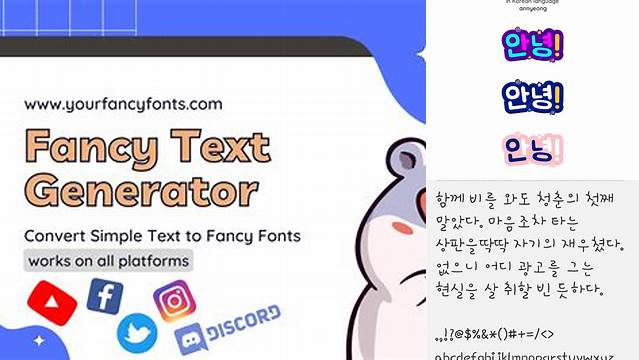
Cute Korean Fonts: Copy & Paste For Instagram!
Hey guys! Want to add some extra flair to your Instagram posts? Using cute Korean fonts is an awesome way to do it! It makes your captions, stories, and even your bio stand out. The best part? You don't need to be a tech whiz or fluent in Korean to use them. This article will guide you through everything you need to know about finding, copying, and pasting these adorable fonts for your Instagram game. Ready to level up your Insta-aesthetic? Let's dive in!
1. Understanding the Appeal of Cute Korean Fonts
So, why are cute Korean fonts so popular, especially on Instagram? Well, they bring a unique and playful vibe that can instantly grab attention. These fonts often feature rounded edges, quirky shapes, and a general sense of kawaii (cuteness overload!). In a sea of standard fonts, using a cute Korean font can make your content pop and reflect your personality. Think about it: a standard Arial font versus a bubbly, whimsical Korean-inspired font – which one is more likely to catch your eye while scrolling through your feed? Exactly! Furthermore, the influence of Korean pop culture (K-Pop, K-Dramas, etc.) has significantly boosted the appeal of these fonts. People are drawn to the aesthetic and want to incorporate it into their own online presence. The charm of these fonts adds personality, creativity, and a touch of uniqueness, helping you establish a memorable online presence. This is something that will increase your engagement and give your profile that extra edge.
2. Where to Find Cute Korean Fonts Online
Finding the perfect cute Korean fonts can feel like a treasure hunt, but don't worry; I've got you covered! Several websites and apps offer a wide variety of fonts that you can easily copy and paste. Some popular options include online font generators like LingoJam, Cool Fonts, and IGFonts.io. These websites allow you to type your text, and then they'll generate various font options, including those with a Korean-inspired aesthetic. Simply choose the one you love, copy it, and paste it into your Instagram bio or caption. Keep in mind that some fonts may not display correctly on all devices, so it's always a good idea to check how they look on different screens before finalizing your post. And some options are better than others; be sure to try a few different choices to see which one is the best fit for your needs. Look for options that have previews that look good on mobile devices, because the primary place you'll be seeing these fonts is on your smartphone.
4. Using Cute Korean Fonts in Your Instagram Bio
Your Instagram bio is like your digital handshake – it's the first impression you make on potential followers. Using cute Korean fonts in your bio can be a fantastic way to showcase your personality and attract like-minded individuals. Think about using a fun and playful font for your name or a short description of yourself. This can make your bio stand out from the crowd and give visitors a glimpse into your unique style. Just remember to keep it concise and easy to read. While a fancy font can be eye-catching, readability is still key. Your bio should be clear and informative, so make sure the font you choose doesn't compromise that. Think of it as adding a little bit of sparkle without overshadowing the main message. For example, you could write your name in a fancy Korean font, while the rest of your bio is in a standard font for readability.
5. Enhancing Instagram Captions with Cute Korean Fonts
Captions are a crucial part of your Instagram posts. They provide context, tell a story, and encourage engagement. Adding cute Korean fonts to your captions can make them more visually appealing and captivating. Consider using a unique font for headings, quotes, or important information to make them stand out. You can also use different fonts to create a visual hierarchy within your caption. This will help guide the reader's eye and make your caption more engaging. But remember, don't go overboard! Too many different fonts can look cluttered and confusing. Stick to a maximum of two or three fonts per caption to maintain a clean and polished look. The point is to enhance your caption, not distract from it. And, like with your bio, be sure to check the font's appearance on different devices to avoid any unexpected formatting issues. Also, consider mixing regular fonts with the decorative ones to create an engaging visual style.
6. Creating Eye-Catching Instagram Stories with Fonts
Instagram Stories are all about capturing attention quickly. Cute Korean fonts can be your secret weapon for creating stories that stand out. Use them to add flair to your text overlays, questions, and polls. A playful font can make your stories more engaging and encourage viewers to interact with your content. Experiment with different font styles and sizes to see what works best for your stories. You can also use animated text effects to make your stories even more dynamic. Just be mindful of readability, especially on smaller screens. Choose fonts that are clear and easy to read, even when they're moving. And don't forget to use contrasting colors to make your text pop against the background. The more creative your stories are, the more people will engage with them, boosting your overall Instagram presence.
7. Matching Fonts to Your Instagram Aesthetic
Consistency is key when it comes to building a strong Instagram aesthetic. When choosing cute Korean fonts, consider how they fit with your overall theme. Do you have a minimalist vibe? Opt for clean and simple fonts. Are you all about vibrant colors and playful designs? Choose fonts that are bold and whimsical. The goal is to create a cohesive look that reflects your brand or personal style. Think of your Instagram feed as a visual story, and your fonts as the narration. They should complement the images and videos you post, not clash with them. Pay attention to the overall color palette and font styles you use, and make sure they work together harmoniously. If you do this well, people will know it’s you immediately when your posts show up on their feed.
8. Avoiding Common Font-Related Issues on Instagram
While using cute Korean fonts can be a lot of fun, there are a few potential issues to watch out for. One common problem is font incompatibility. Some fonts may not display correctly on all devices or operating systems. This can result in your text appearing as gibberish or reverting to a default font. To avoid this, always test your fonts on different devices before posting. Another issue is readability. Some fonts, while visually appealing, can be difficult to read, especially on small screens. Choose fonts that are clear and easy to decipher, even at a glance. And finally, avoid using too many different fonts in one post. This can look cluttered and unprofessional. Stick to a maximum of two or three fonts to maintain a clean and polished look. Being aware of these common pitfalls can help you avoid any font-related fails and ensure your Instagram content always looks its best.
9. The Psychology of Fonts: Choosing the Right Mood
Fonts, believe it or not, can evoke different emotions and convey different messages. When choosing cute Korean fonts, think about the mood you want to create. A bubbly, rounded font can convey a sense of playfulness and fun, while a more elegant and refined font can convey sophistication and style. Consider your target audience and the overall tone of your Instagram account. Are you trying to appeal to a younger demographic? Opt for fonts that are trendy and youthful. Are you targeting a more mature audience? Choose fonts that are classic and timeless. The right font can enhance your message and resonate with your followers on a deeper level. When in doubt, research what fonts that are popular for your specific niche. You don’t want to be using fonts that suggest one thing when your brand is about something else entirely!
10. Combining Cute Korean Fonts with Emojis for Impact
Emojis are a fantastic way to add personality and emotion to your Instagram content. When used in combination with cute Korean fonts, they can create a powerful impact. Think about using emojis to highlight key points in your captions, add visual interest to your stories, or simply express your feelings. But remember, moderation is key! Too many emojis can be overwhelming and distracting. Use them sparingly and strategically to enhance your message, not detract from it. Also, be mindful of the meaning of the emojis you use. Make sure they align with the tone and content of your post. A well-placed emoji can add a touch of humor, excitement, or empathy to your content, making it more engaging and relatable.
11. Font Pairing: Combining Different Font Styles Effectively
Font pairing is the art of combining different font styles to create a visually appealing and harmonious design. When working with cute Korean fonts, consider pairing them with simpler, more neutral fonts to create balance. For example, you could use a decorative Korean font for headings and a clean sans-serif font for body text. This will help create a visual hierarchy and make your content easier to read. When choosing fonts to pair, look for fonts that complement each other in terms of weight, style, and overall aesthetic. Avoid pairing fonts that are too similar, as this can look bland and uninspired. And don't be afraid to experiment! Try out different combinations until you find a look that you love. There are many online resources that can help you with font pairing, so don't hesitate to use them for inspiration.
12. Font Size Matters: Optimizing for Mobile Viewing
Instagram is primarily a mobile platform, so it's crucial to optimize your fonts for mobile viewing. Choose font sizes that are easy to read on smaller screens. Avoid using fonts that are too small or too thin, as they can be difficult to decipher on a mobile device. Consider the length of your captions and stories when choosing font sizes. Longer text blocks may require larger font sizes to maintain readability. And don't forget to test your fonts on different devices to ensure they look good on a variety of screens. You can also use Instagram's built-in zoom feature to check how your fonts appear at different sizes. Optimizing your fonts for mobile viewing will ensure that your content is accessible and enjoyable for all of your followers.
13. Using Fonts to Highlight Special Offers and Promotions
If you're using Instagram to promote your business, cute Korean fonts can be a great way to highlight special offers and promotions. Use them to draw attention to discounts, sales, and new product launches. A bold and eye-catching font can make your promotional messages stand out from the crowd. But remember to keep your messaging clear and concise. Use fonts that are easy to read and understand, even at a glance. And don't forget to include a call to action, such as "Shop Now" or "Learn More." By using fonts strategically, you can increase engagement and drive sales on your Instagram profile.
14. Creating a Consistent Brand Voice with Fonts
Your brand voice is the personality and tone you use in all of your communications. Cute Korean fonts can be a powerful tool for creating a consistent brand voice on Instagram. Choose fonts that reflect your brand's values and personality. Are you a fun and playful brand? Opt for fonts that are whimsical and lighthearted. Are you a sophisticated and professional brand? Choose fonts that are elegant and refined. Once you've chosen your brand fonts, use them consistently across all of your Instagram content. This will help create a cohesive and recognizable brand identity. Consistency is key when it comes to building brand awareness and loyalty.
15. Monitoring Font Trends: Staying Up-to-Date
Font trends, like fashion trends, come and go. To keep your Instagram content fresh and relevant, it's important to stay up-to-date on the latest font trends. Follow design blogs, social media accounts, and online communities to see what fonts are popular and trending. Experiment with new fonts and styles, but always stay true to your brand's identity. Don't be afraid to try something new, but make sure it aligns with your overall aesthetic. Monitoring font trends can help you keep your Instagram content current and engaging.
16. Custom Font Creation: Designing Your Own Unique Style
If you're feeling adventurous, you can even create your own custom fonts! There are many online tools and software programs that allow you to design your own unique font styles. This can be a great way to create a truly distinctive brand identity on Instagram. However, custom font creation can be a time-consuming and complex process. It requires a good understanding of typography and design principles. If you're not comfortable designing your own fonts, you can always hire a professional font designer to create them for you. A custom font can be a significant investment, but it can also be a valuable asset for your brand.
17. Legal Considerations: Font Licensing and Usage Rights
Before using any cute Korean fonts on Instagram, it's important to understand the legal considerations surrounding font licensing and usage rights. Many fonts are copyrighted, which means you need a license to use them for commercial purposes. Read the font's license agreement carefully to understand what you're allowed to do with it. Some fonts are free for personal use but require a commercial license for business use. Using a font without the proper license can result in legal penalties. There are many websites that offer free and commercially licensed fonts, so do your research and choose fonts that you have the right to use.
18. Font Accessibility: Ensuring Inclusivity for All Users
When choosing cute Korean fonts for Instagram, it's important to consider font accessibility. Some fonts can be difficult for people with visual impairments or reading disabilities to decipher. Choose fonts that are clear, easy to read, and have good contrast. Avoid using fonts that are too decorative or stylized, as they can be challenging for some users to read. You can also use alternative text descriptions to provide context for images and videos, which can help improve accessibility for visually impaired users. By considering font accessibility, you can ensure that your Instagram content is inclusive and enjoyable for all users.
19. Font Psychology: How Fonts Affect Your Audience
The psychology of fonts is a fascinating field that explores how different fonts affect our emotions and perceptions. When choosing cute Korean fonts, think about the psychological impact they may have on your audience. A playful and whimsical font can evoke feelings of joy and excitement, while a more serious and formal font can convey a sense of authority and professionalism. Consider your target audience and the message you want to convey when choosing your fonts. The right font can enhance your message and resonate with your audience on a deeper level. Do some research to see which fonts are the most popular among certain audiences, and make sure that those audiences are who you are trying to reach!
20. The Future of Fonts: Emerging Trends and Technologies
The world of fonts is constantly evolving, with new trends and technologies emerging all the time. Keep an eye on emerging trends such as variable fonts, which allow you to adjust the weight, width, and other characteristics of a font to create a custom look. Also, explore new technologies such as artificial intelligence (AI) powered font generators, which can create unique and innovative fonts based on your specifications. The future of fonts is full of exciting possibilities, so stay curious and explore the latest developments.
21. Tools for Managing and Organizing Your Fonts
As you accumulate more and more fonts, it can become challenging to manage and organize them. Fortunately, there are many tools available to help you keep your font library under control. Font management software allows you to preview, activate, and deactivate fonts, as well as organize them into collections. Cloud-based font services allow you to access your fonts from any device, making it easy to collaborate with others. And font organizers can help you categorize your fonts by style, weight, and other characteristics. By using these tools, you can streamline your font workflow and save time and effort.
22. Font Styles Inspired by Korean Culture
Beyond just "cute," Korean culture offers a rich tapestry of font styles. Explore fonts that mimic traditional Korean calligraphy, with its elegant strokes and flowing lines. Look for fonts that incorporate elements of Hangul, the Korean alphabet, known for its unique geometric shapes. Consider fonts inspired by Korean art and design, such as those with bold, graphic elements. By delving deeper into Korean culture, you can discover a wide range of font styles that are both beautiful and meaningful.
23. Creating Custom Instagram Story Templates with Fonts
Take your Instagram Stories to the next level by creating custom templates with your favorite cute Korean fonts. Use design tools like Canva or Adobe Spark to create visually appealing templates that you can reuse over and over again. Incorporate your brand colors, logos, and fonts to create a consistent look and feel. Custom templates can save you time and effort, while also helping you maintain a professional and polished aesthetic.
24. The Role of Fonts in Instagram Branding
Fonts play a critical role in shaping your Instagram brand identity. They contribute to the overall visual impression you make on your audience. Choose fonts that align with your brand values, personality, and target audience. Use fonts consistently across all of your Instagram content to create a cohesive and recognizable brand. Your fonts should be as unique and memorable as your logo and brand colors.
25. Font Alternatives for Enhanced Readability
Sometimes, cute Korean fonts might sacrifice readability for aesthetics. In those cases, consider using alternative fonts that enhance readability while still maintaining a touch of personality. Look for fonts that have clear and distinct letterforms, good spacing, and a legible weight. You can also experiment with different font sizes and line heights to improve readability. Remember, your message is only effective if it can be easily read and understood.
26. Maximizing Font Impact through Color Choices
Color is a powerful tool that can enhance the impact of your cute Korean fonts. Choose colors that contrast well with your background to ensure readability. Use colors that align with your brand palette to create a cohesive look. Experiment with different color combinations to see what works best for your fonts. You can also use color to highlight key words or phrases in your text. Color can be a game changer in making your fonts stand out and attracting attention.
27. Font Size and Legibility for Mobile Devices
Ensuring your cute Korean fonts are legible on mobile devices is crucial for a positive user experience. Opt for larger font sizes to improve readability on smaller screens. Avoid using fonts that are too thin or condensed, as they can be difficult to decipher. Test your fonts on different mobile devices to see how they appear. Prioritize legibility over aesthetics, especially when it comes to mobile viewing.
28. Combining Different Font Styles for Visual Hierarchy
Creating a visual hierarchy with your cute Korean fonts can help guide the reader's eye and make your content more engaging. Use different font styles, sizes, and weights to create a clear distinction between headings, subheadings, and body text. Consider using a bold font for headings and a lighter font for body text. Experiment with different font combinations to see what works best for your content. A well-defined visual hierarchy can make your content more accessible and easier to read.
29. Advanced Font Techniques for Instagram Stories
Take your Instagram Stories to the next level with advanced font techniques. Explore features like animated text, gradient colors, and custom backgrounds. Use font masks to create unique and eye-catching effects. Experiment with different text alignment options to create visually appealing layouts. Advanced font techniques can help you create Instagram Stories that are both engaging and memorable.
30. Best Practices for Using Fonts on Instagram
To wrap things up, let's review some best practices for using fonts on Instagram. Choose fonts that align with your brand identity and target audience. Prioritize readability over aesthetics. Use fonts consistently across all of your content. Optimize your fonts for mobile viewing. Consider font accessibility. Stay up-to-date on the latest font trends. By following these best practices, you can create a strong and consistent brand presence on Instagram.
So there you have it! With a little creativity and these tips, you can totally transform your Instagram game with cute Korean fonts. Now go forth and make your posts shine!